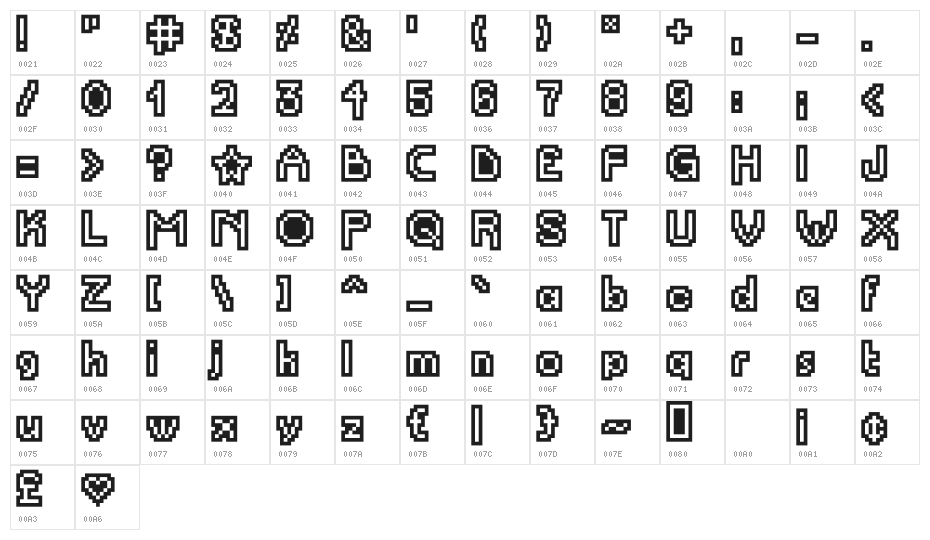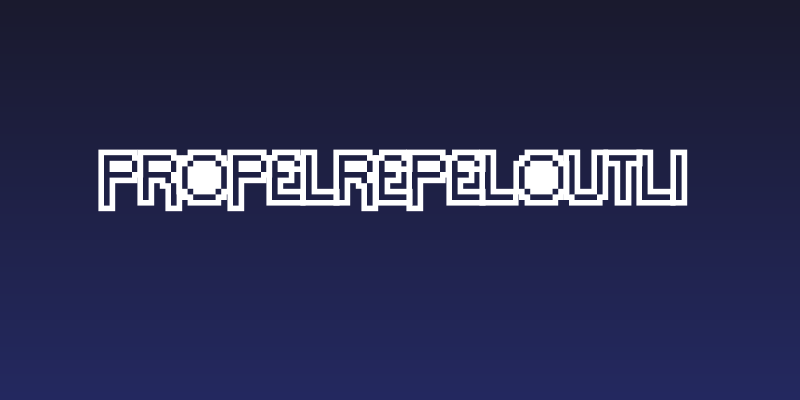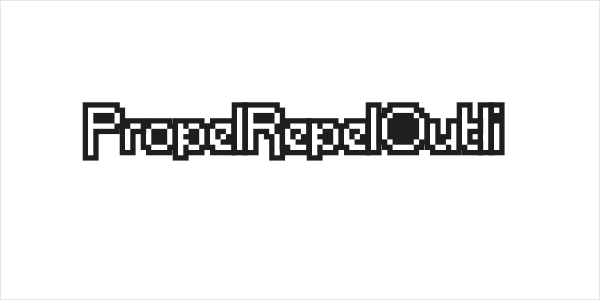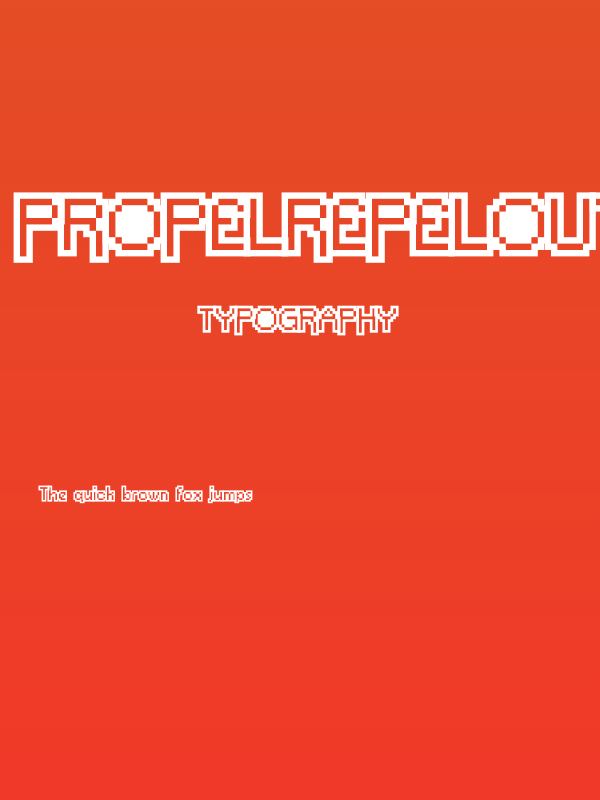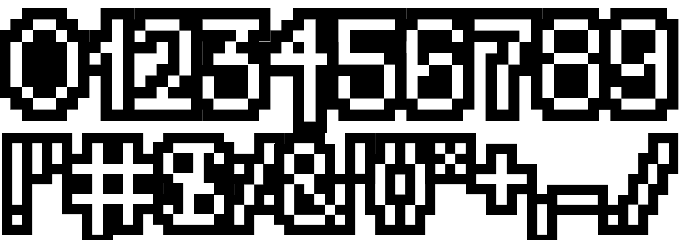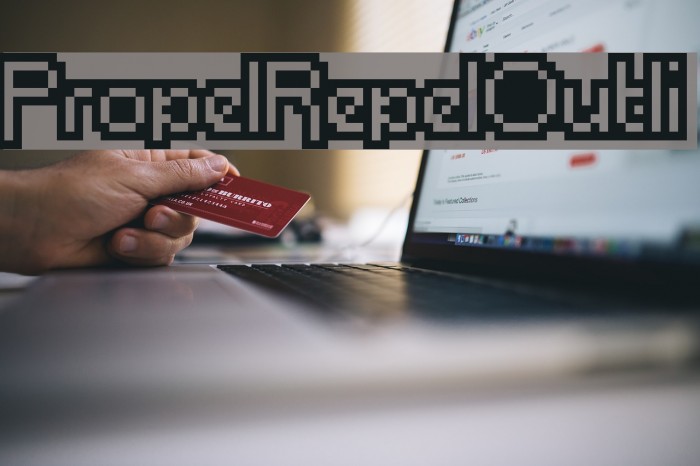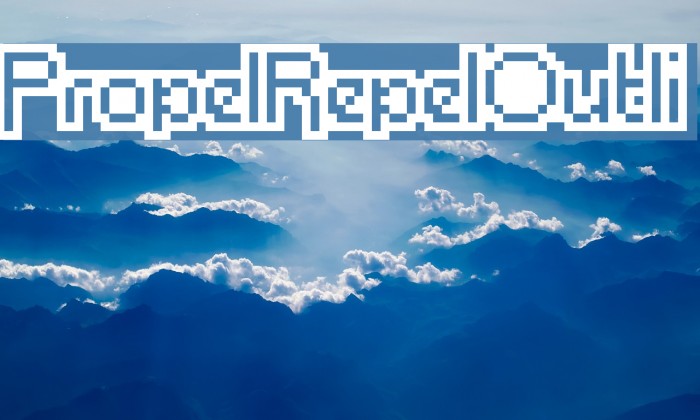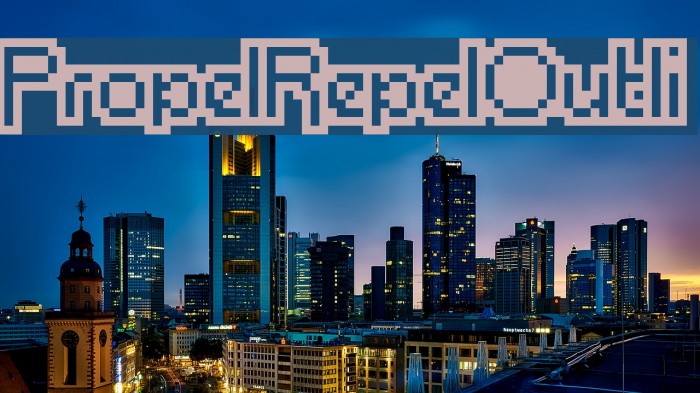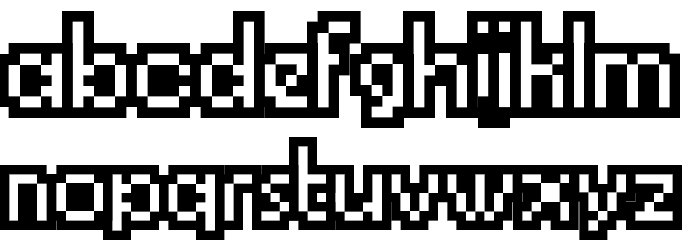
PropelRepelOutli Font
PropelRepelOutli Description
This font features a bold, pixelated design reminiscent of classic arcade games and early digital displays. Each character is constructed with a blocky, grid-like structure, giving it a distinctly retro and digital aesthetic. The uppercase and lowercase letters maintain a uniform height, contributing to a cohesive and structured appearance. The numerals and special characters follow the same pixelated style, ensuring consistency across all glyphs. This font's unique style makes it ideal for projects that aim to evoke nostalgia or a tech-inspired theme.
| Proposed Projects | Ideal for video game design, retro-themed posters, digital art projects, and tech-inspired branding. |